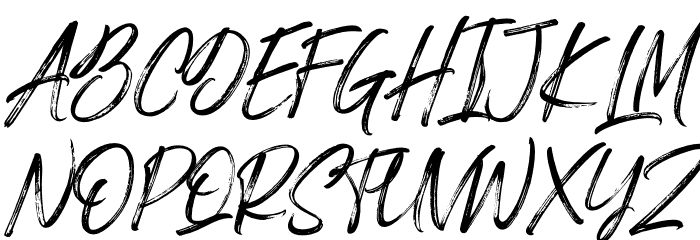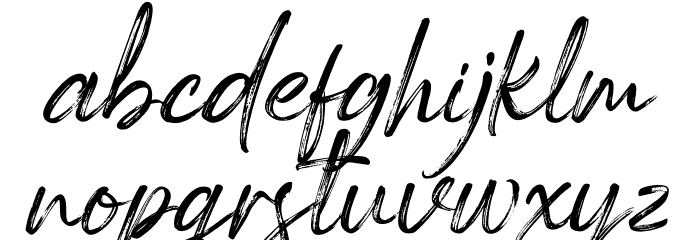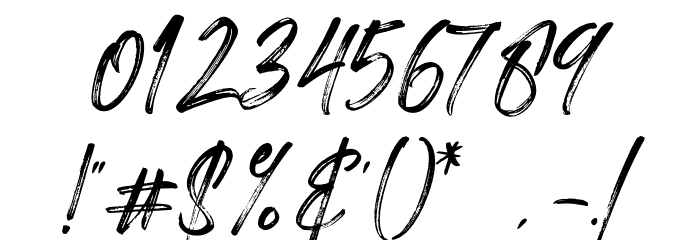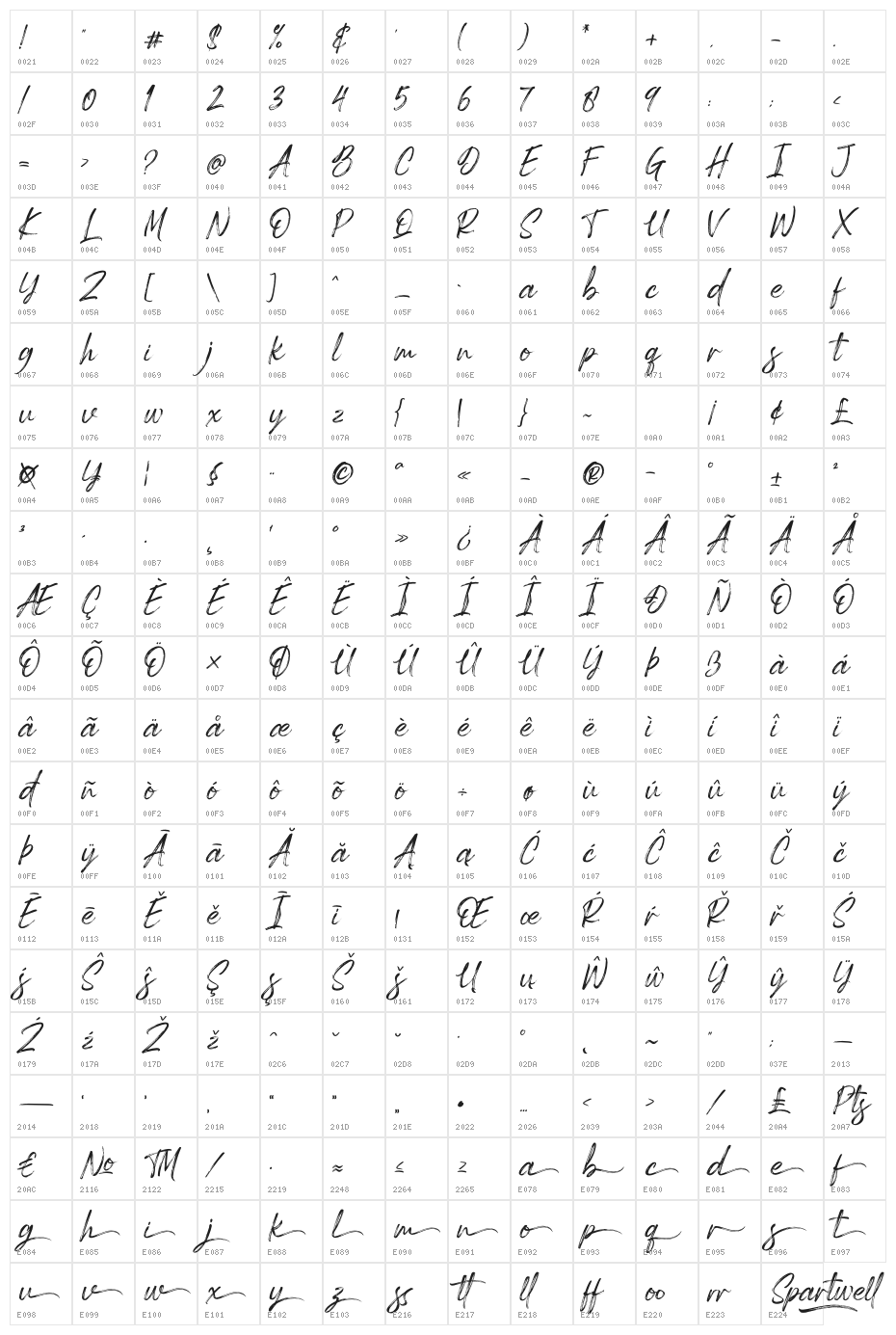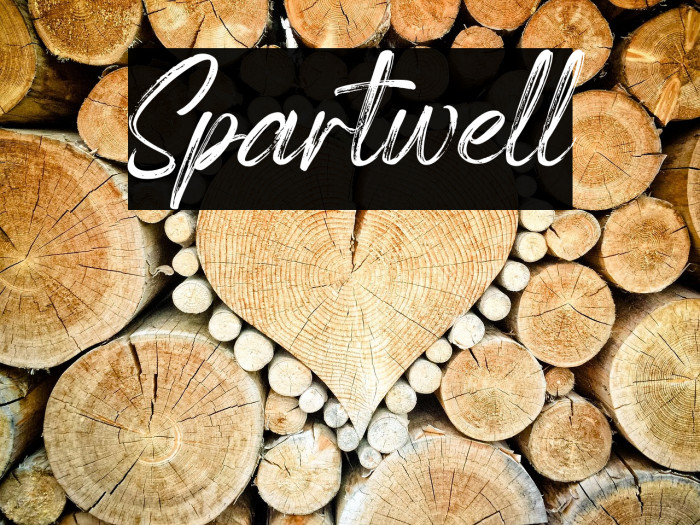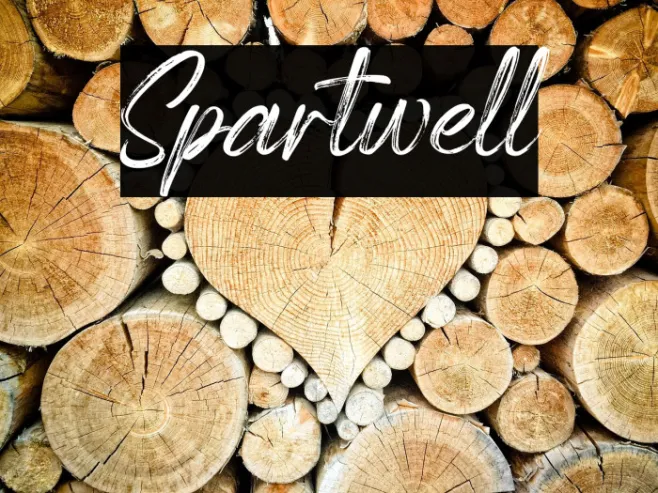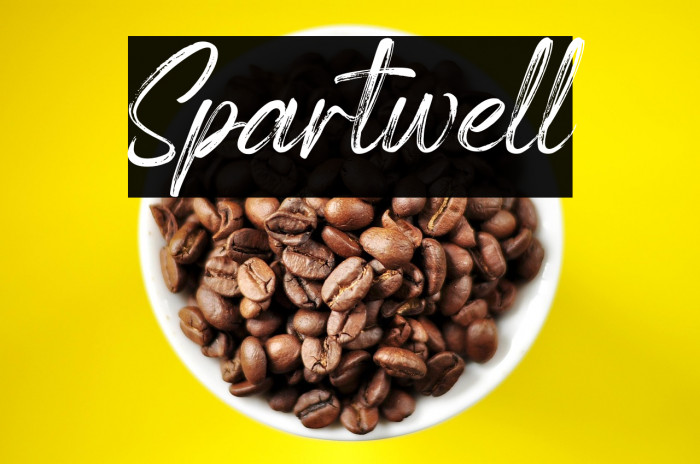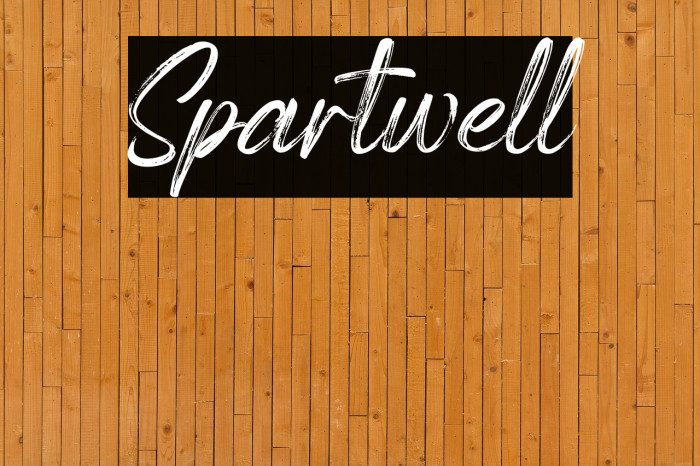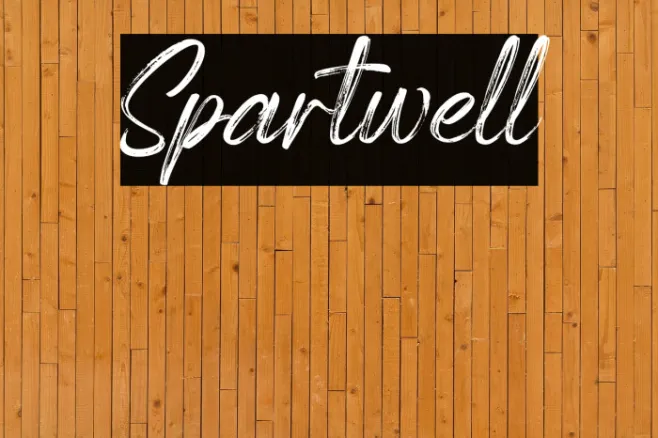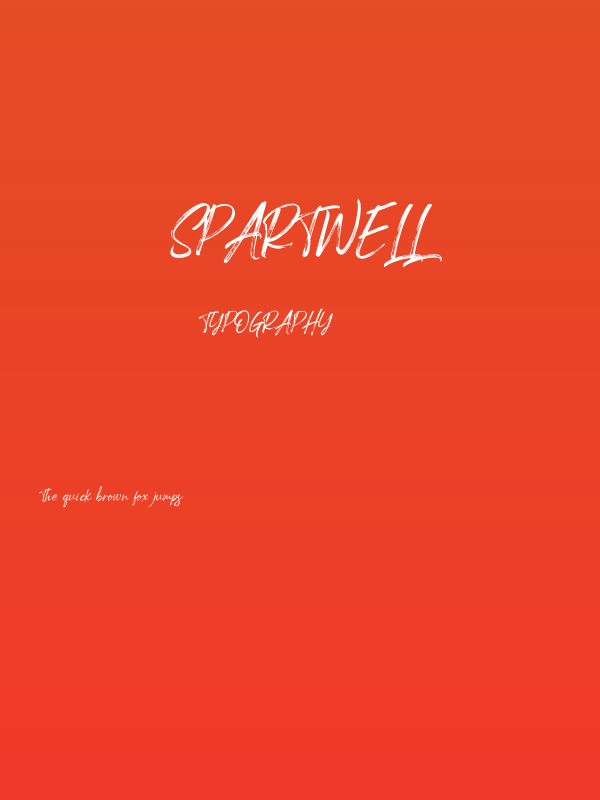
Spartwell Font
This font exudes a dynamic and expressive style, characterized by its brush-like strokes and fluid motion. The letters are crafted with a sense of spontaneity, giving it a handwritten feel that is both artistic and modern. The uppercase and lowercase letters maintain a consistent flow, while the numbers and special characters complement the overall aesthetic. The strokes vary in thickness, adding a sense of depth and texture to the design. This font is perfect for projects that require a personal touch or a creative flair.
A dynamic, brush-style font with expressive, fluid strokes.
- Proposed Projects: Ideal for branding, invitations, posters, and artistic projects that require a personal or creative touch.
- Use Case: Logos, Headlines, Artistic projects